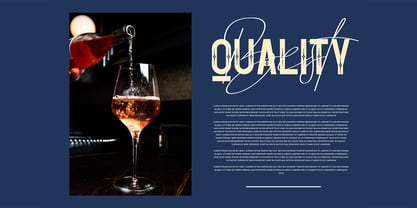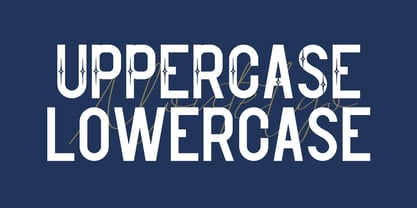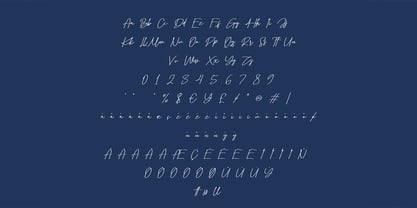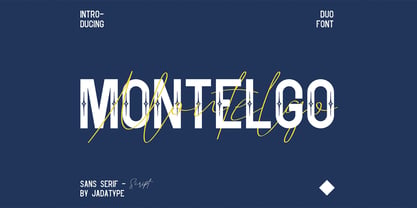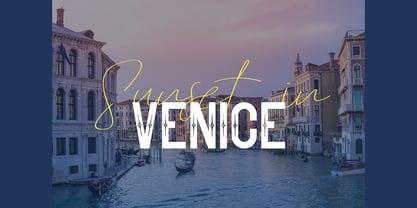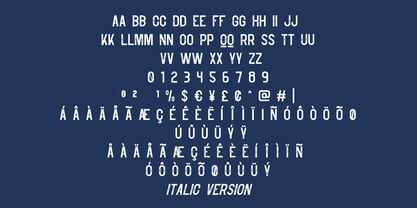
Montelgo
by Jadatype
The Montelgo Font Family was designed by Jada Akbal and published by Jadatype. Montelgo contains 3 styles and family package options. More about this family
Montelgo is a font family that has sans serif and script in it. 1 price for two font styles that complement each other. suitable for social media, logotype, craft, advertisements, and so on. contains standard English letters, numbers, punctuation, and several accents that support multilingualism